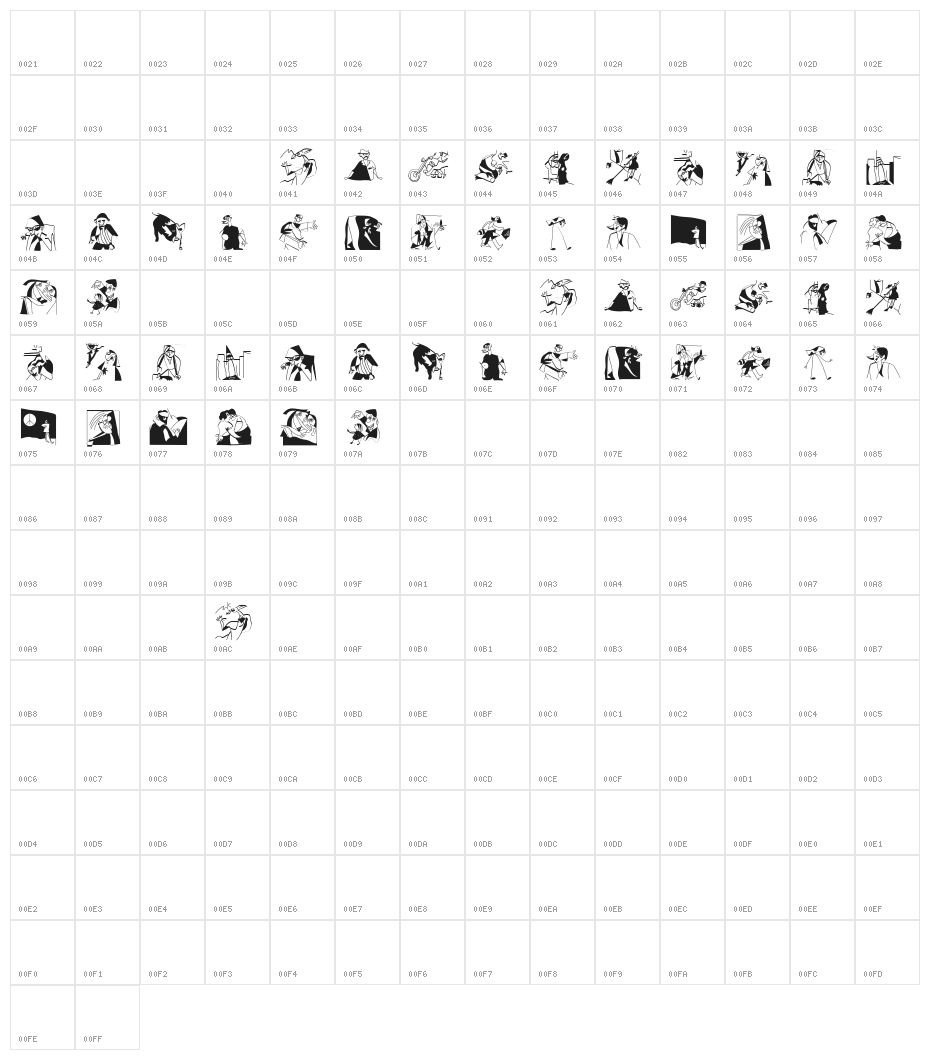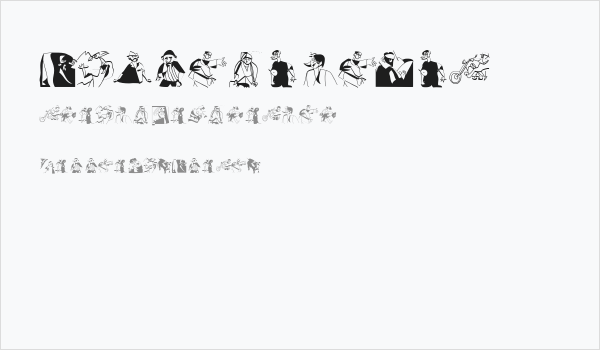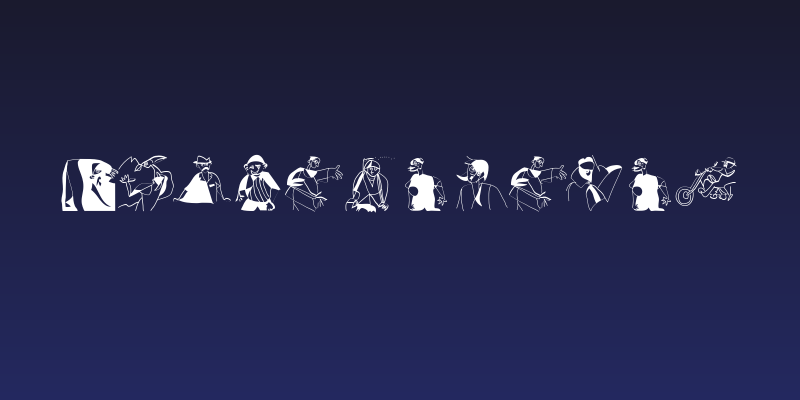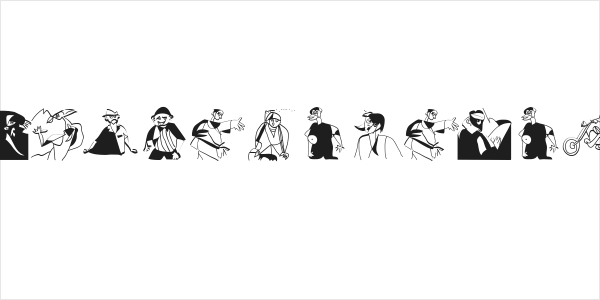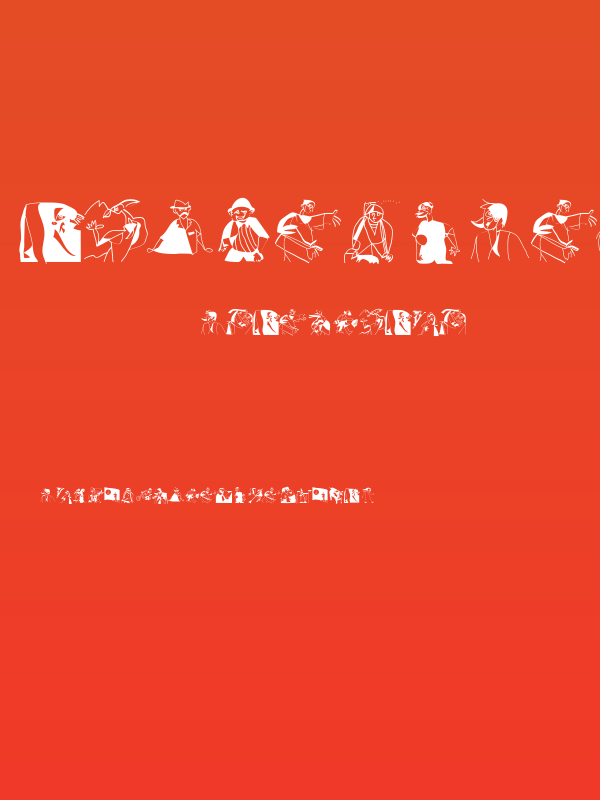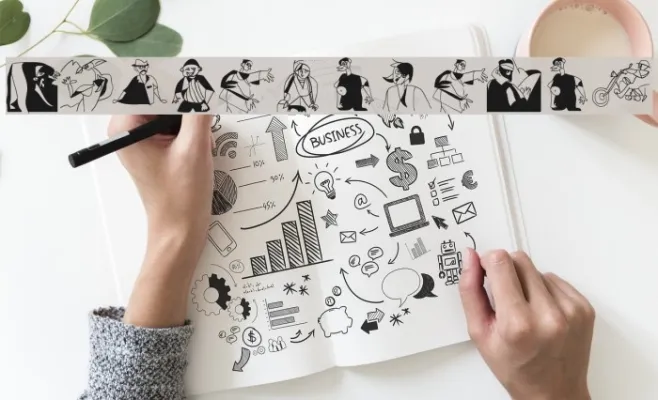
PabloInTownC Font
PabloInTownC Description
This is not a traditional font but rather a collection of artistic illustrations representing each character. Each letter and symbol is depicted through a unique, stylized drawing that captures a whimsical and creative essence. The characters are portrayed in various dynamic poses, each with distinct features and expressions, making them more akin to a series of illustrations than a conventional typeface. The style is reminiscent of abstract art, with bold lines and imaginative forms that convey a sense of movement and personality. This set is more suitable for artistic projects where the visual representation of characters is prioritized over readability.
| Overall Style | Artistic, Abstract |
| Use Case | Artistic projects, Visual storytelling |
| Proposed Projects | Ideal for creative projects, art installations, or any work where visual storytelling through characters is desired. |